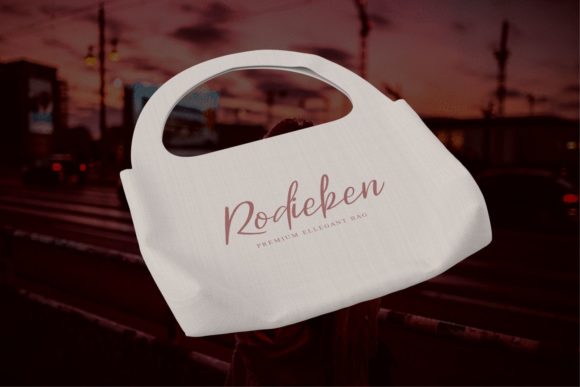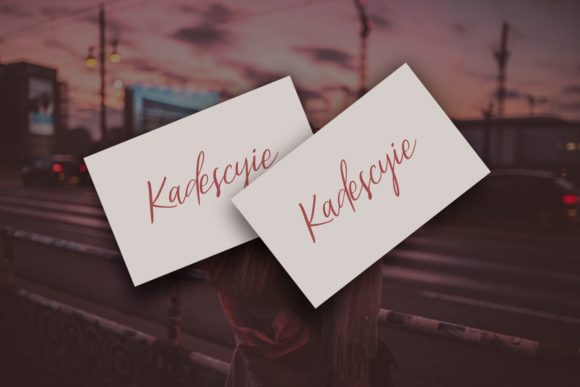
Rollina Font
db-ku.com - Script & Handwritten -- This font feels equally charming and elegant. It looks stunning on wedding invitations, thank you cards, quotes, greeting cards, logos, business cards and every other design which needs a handwritten touch.